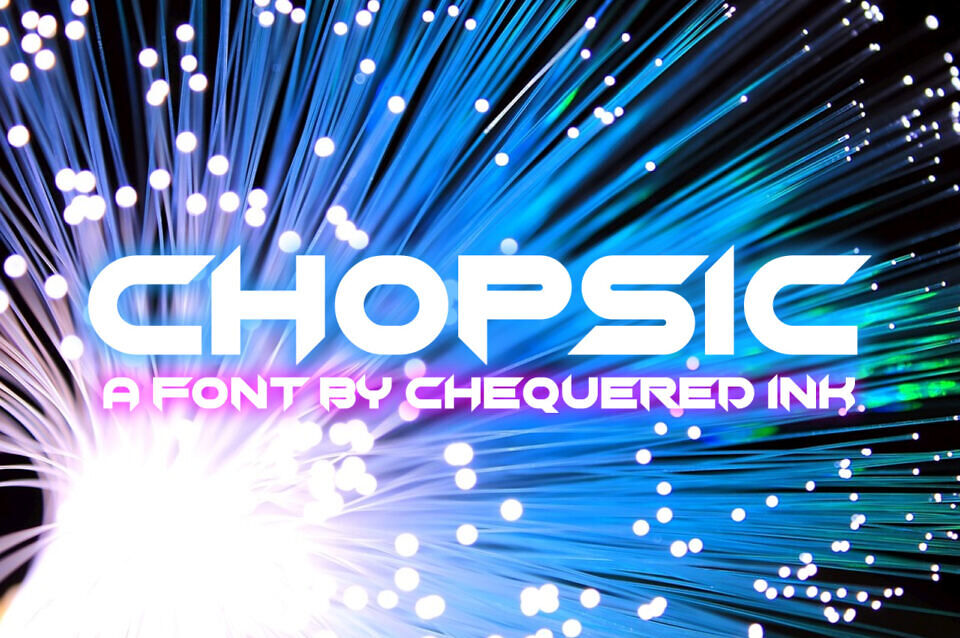
Chopsic Font
Chopsic is a bold, geometric font characterized by a distinct futuristic and tech-inspired aesthetic. Featuring heavy, blocky letterforms with sharp angles and stylized edges, it is designed to deliver high visual impact. This unconventional font is ideal for modern, attention-grabbing design projects like logos, striking headlines, sci-fi themes, and dynamic posters.
Designed by: Chequered Ink